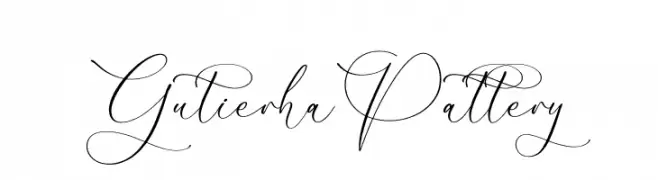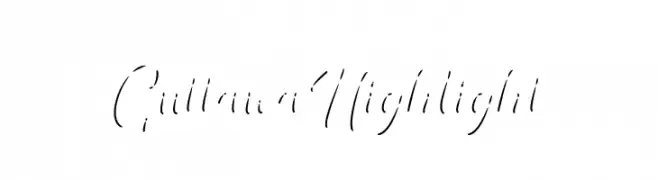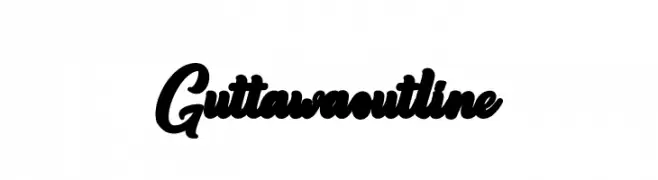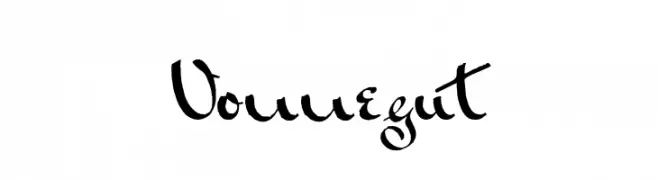
A bold, elegant script font with flowing curves and dynamic strokes.
A stylish, cursive handwritten font with elegant, flowing strokes.
A bold, cursive font with fluid, connected characters and a dynamic style.
A bold, uniform font with thick strokes and a strong presence.
A bold, italicized font with a distressed, vintage texture.
A dynamic and elegant script font with flowing, cursive letterforms.
A playful, casual handwritten font with smooth, rounded strokes.
A bold, rugged font with a hand-crafted, graffiti-like style.
An elegant and flowing script font with intricate loops and graceful lines.
A geometric, blocky font with uniform line thickness and a digital aesthetic.